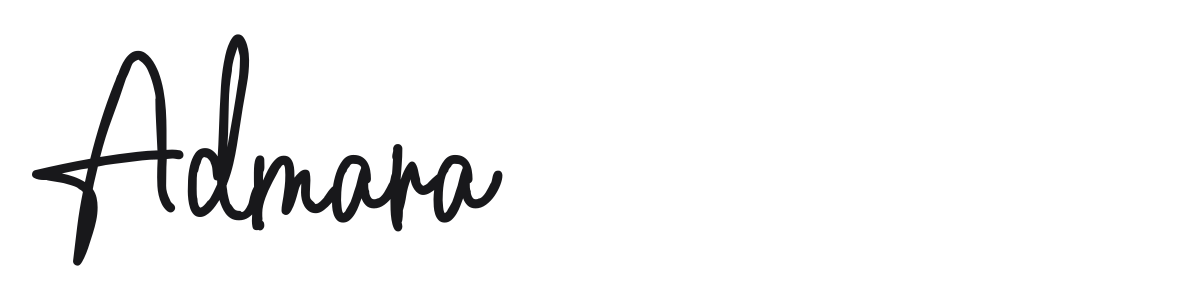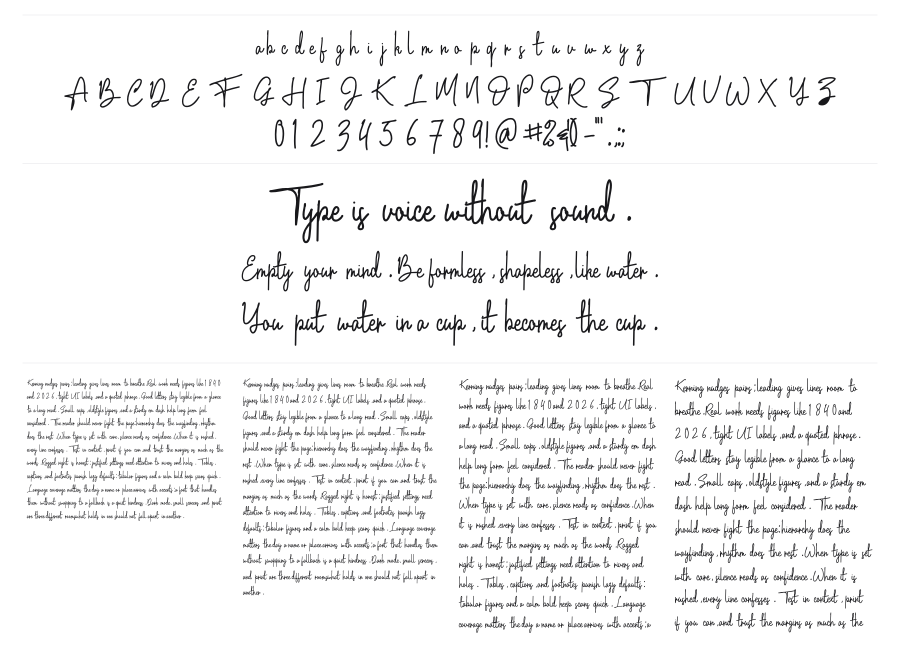
Admara
by Faras Dina
Admara is a casual handwritten script with a natural, flowing rhythm that feels like a confident everyday signature. The connected strokes and gently bouncing baseline give it warmth without trying too hard. It works well for logos, product packaging, and social graphics where a personal, approachable tone is needed.